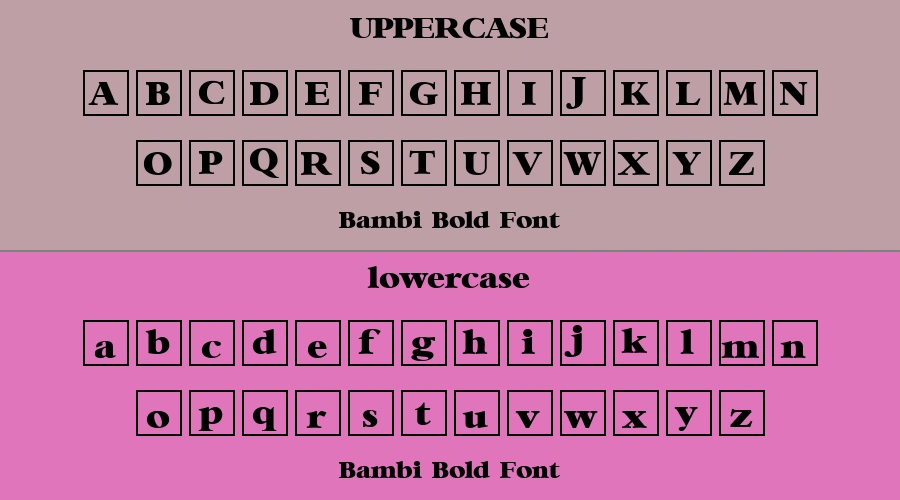
About Bambi Bold Font
Designed with precision, Bambi Bold Font merges decorative elements with attention direction in every character. This versatility makes it particularly effective for web design, where authenticity and practical utility directly impact communication quality. Each letterform demonstrates meticulous craftsmanship.
Technical excellence shines through elements like harmonic curves and oldstyle figures, enhancing typographic versatility. In running text settings, Bambi Bold Font proves its worth through superior table alignment. The thoughtful execution of serif length and cultural references ensures professional results.